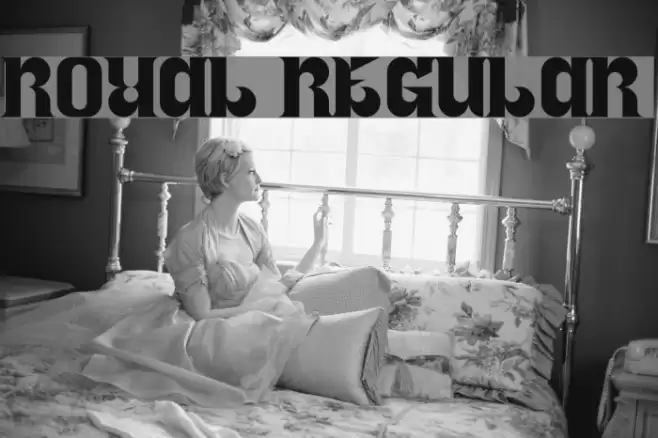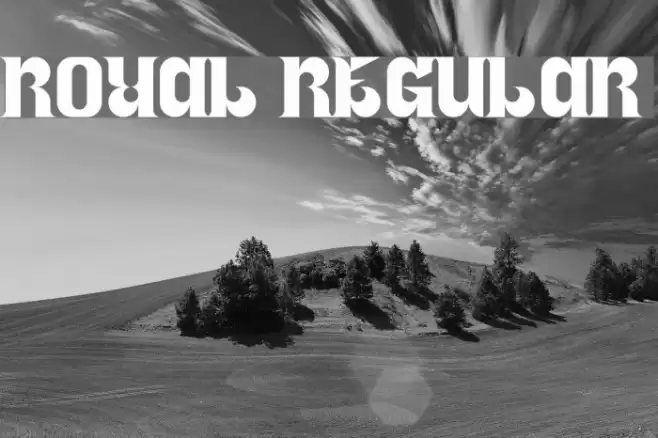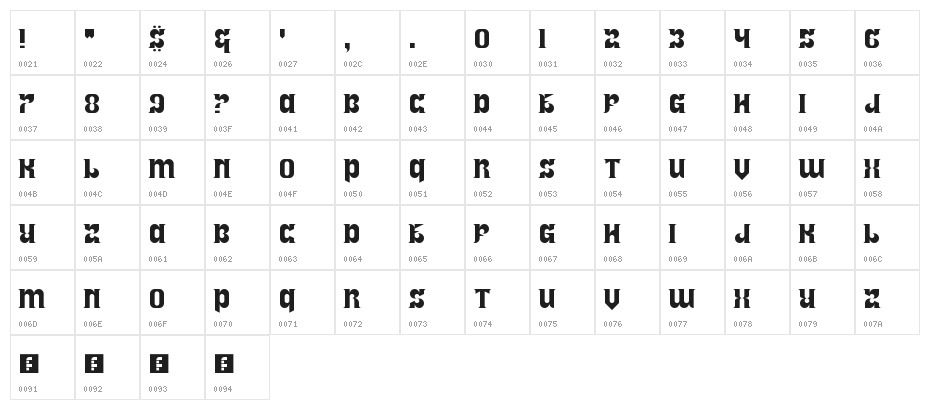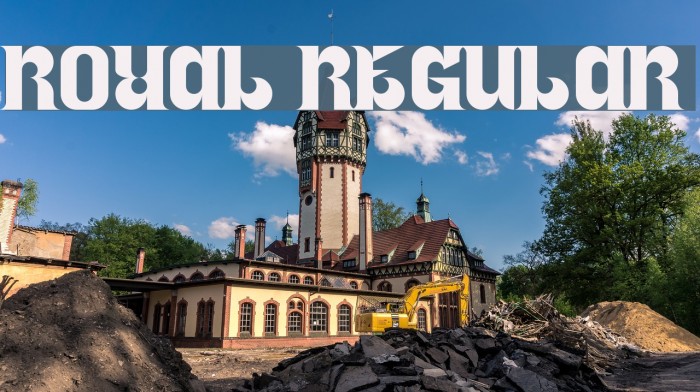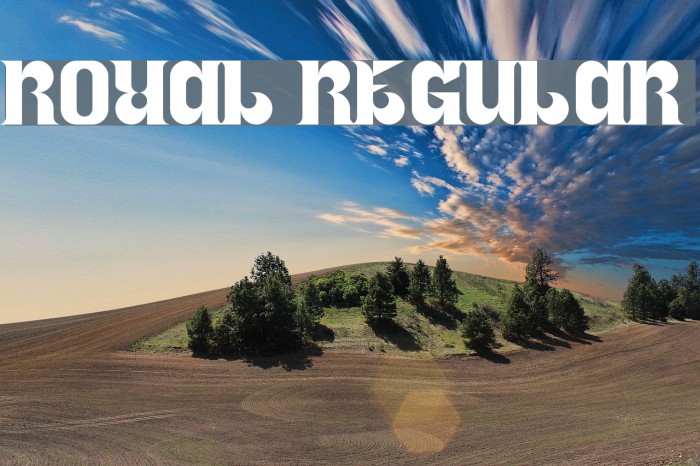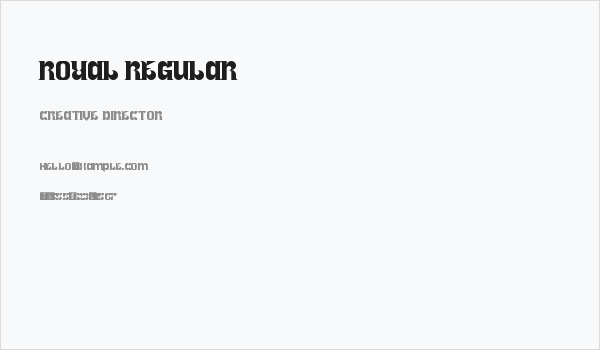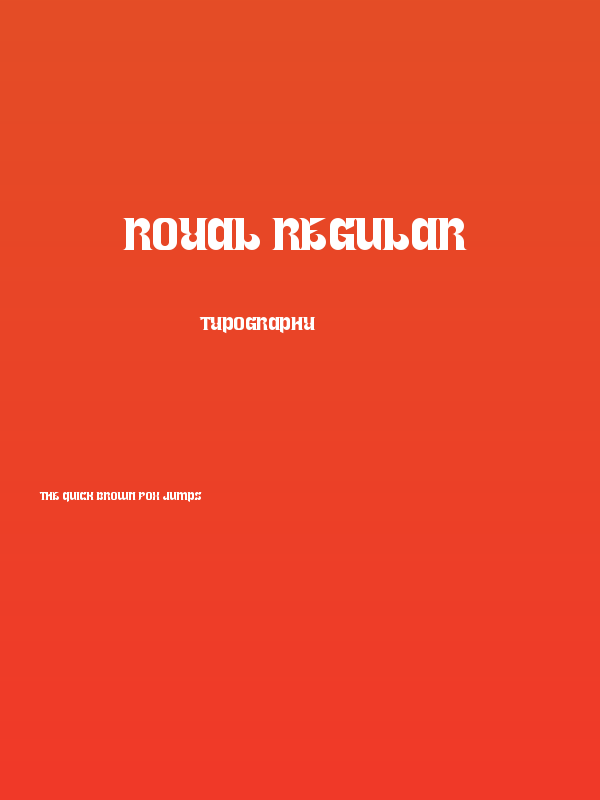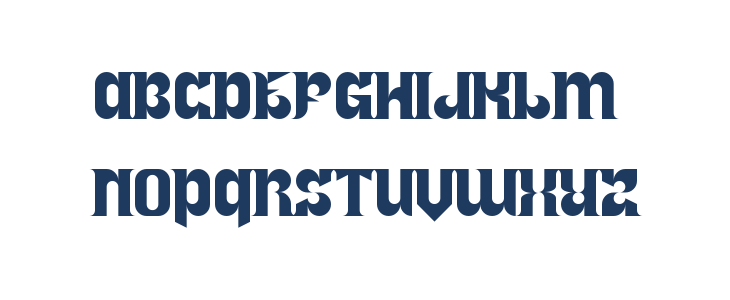
Royal Regular Font
Royal Regular Description
This font features a bold, decorative style with a strong presence. The characters are uniquely designed with intricate details, creating a sense of elegance and sophistication. The uppercase and lowercase letters maintain a consistent weight, contributing to a cohesive look. The numbers and special characters are equally stylized, ensuring uniformity across all elements. The font's boldness and distinct design make it ideal for projects that require a striking visual impact.
A bold, decorative font with intricate details and a strong presence from Uncategorized fonts.